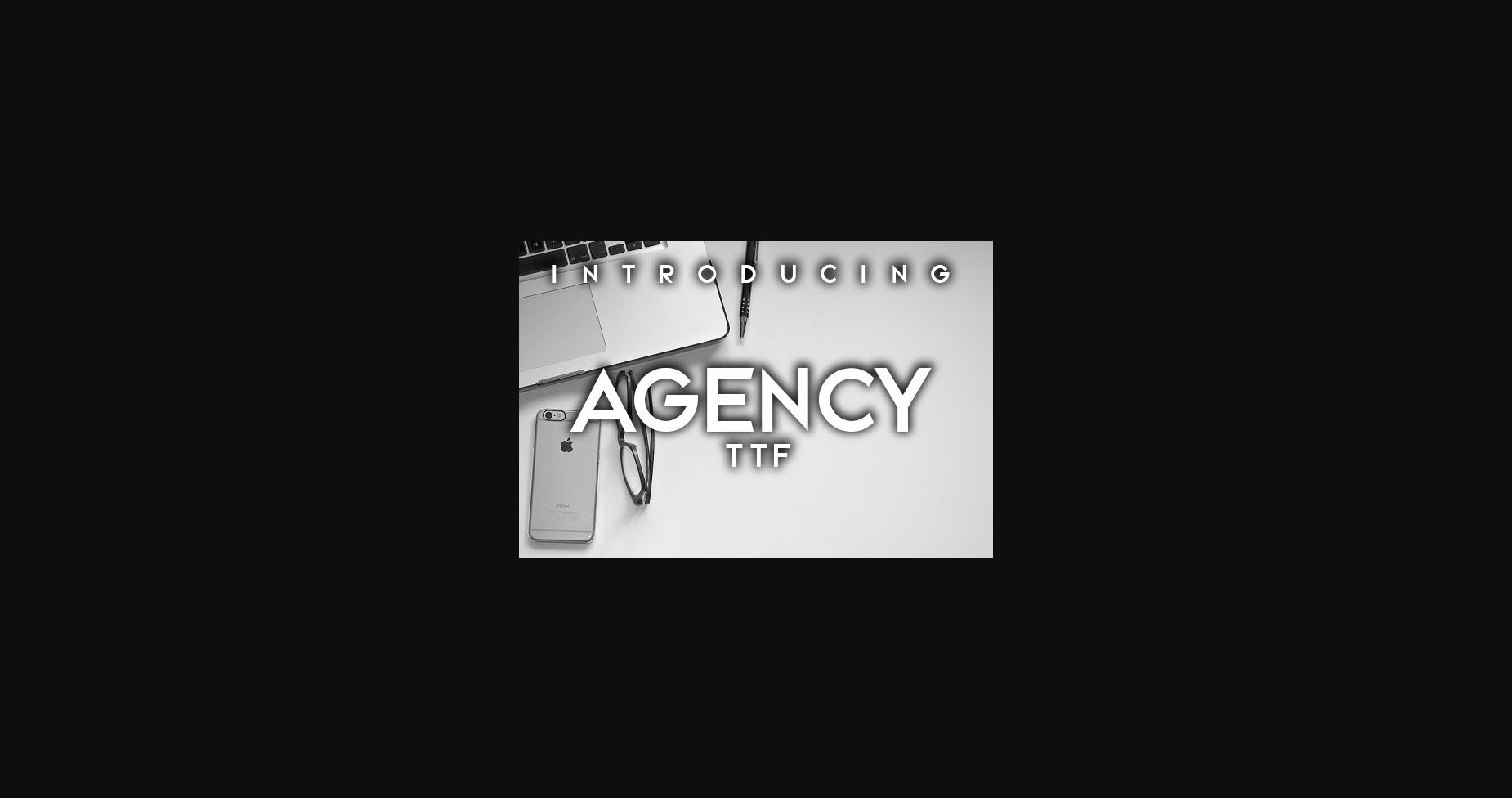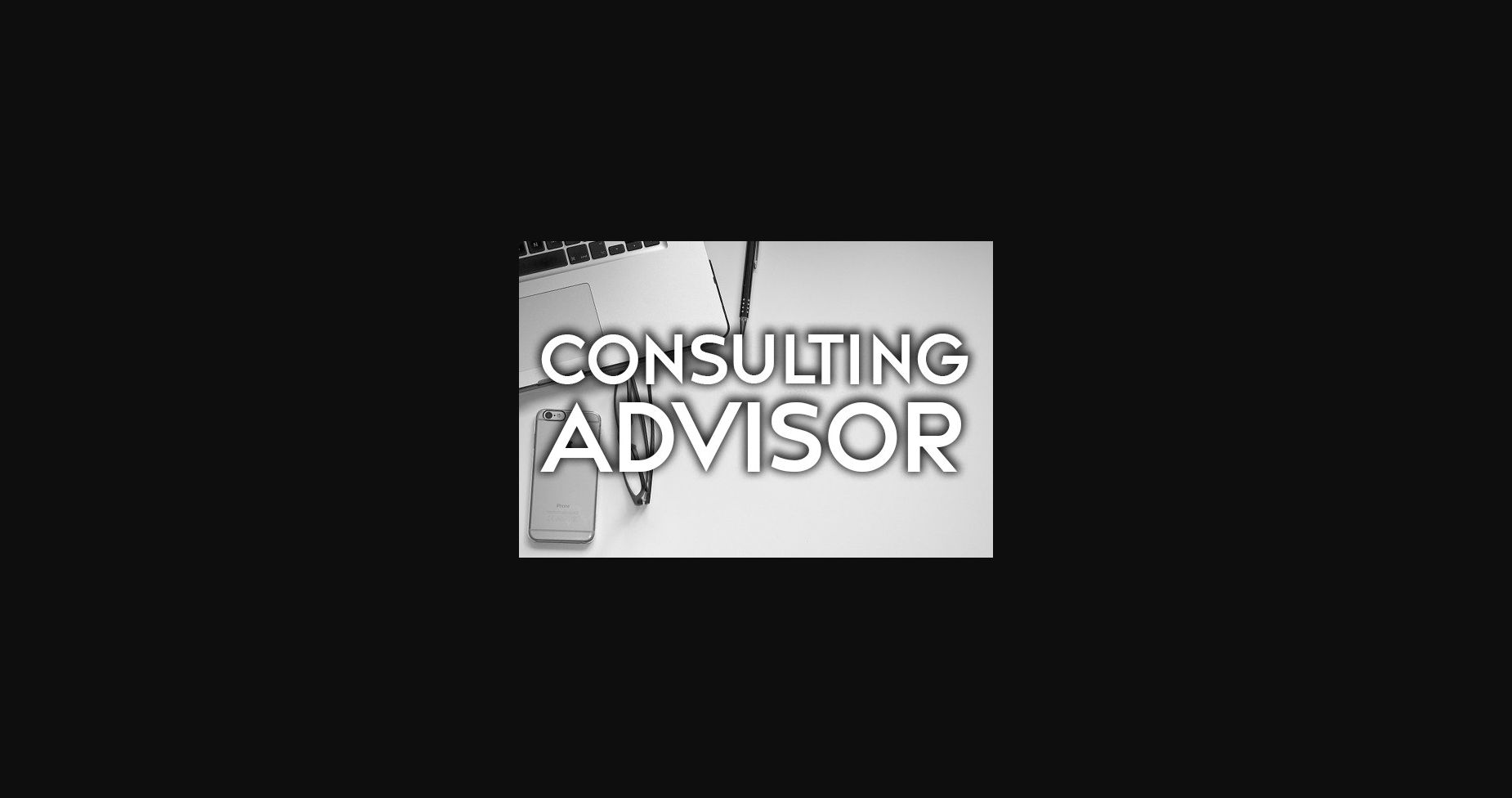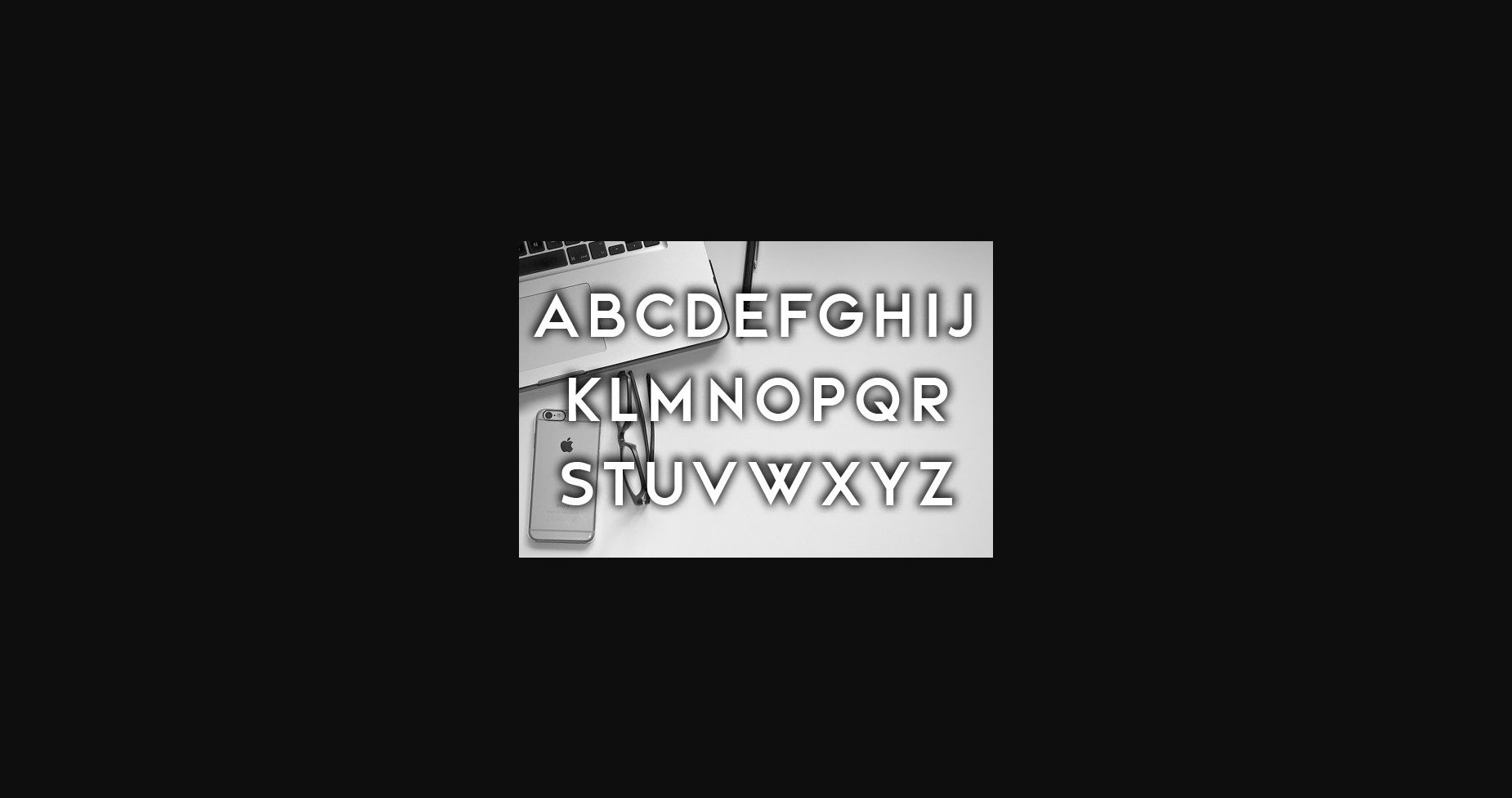
HomeSans Serif FontsAgency Font Sans Serif Fonts Agency Font FacebookTwitterPinterestWhatsApp 1 of 5 ... Agency Font Poster 2... Agency Font Poster 3... Agency Font Poster 4... Agency Font Poster 5... About Agency Font Agency is a stylish sans-serif typeface that will look amazing on any of Your designs. Use this font on posters, flyers, and t-shirts. DOWNLOAD NOW 165 0 People also explored Raisa Lovers Duo Font Luminousity Font Venom Font Rastury Signature Font Mayleena Font Frames Creator 3.0 Font The King Brush Font Saturday Font Mellow Font Lagath Run out Font Jelly Toast Font TagsAgencyAgency Font Previous articlePutz FontNext articleBrowni Font LEAVE A REPLY Cancel reply Comment: Please enter your comment! Name:* Please enter your name here Email:* You have entered an incorrect email address! Please enter your email address here Website: Save my name, email, and website in this browser for the next time I comment. Unlock Endless Creativity with the FREE September Clipart Huge Bundle (Valued at $700!) Personal Use Free Royal Bengal Tiger Personal Use Free Read more Gupis Personal Use Free Read more Comic Caps Personal Use Free Read more Cuttering Personal Use Free Read more BLOG To increase your work productivity, choose the most readable fonts. In today's fast-paced work environment, where digital communication and information consumption are integral to our daily routines, the choice of fonts can significantly impact... Top 7 Google Fonts Alternatives for Faster and Privacy-Friendly Web Design (2025) Where to Buy American Fonts Online in 2024 Free Fonts Risk: Why Free Fonts Can Be Dangerous for Designers